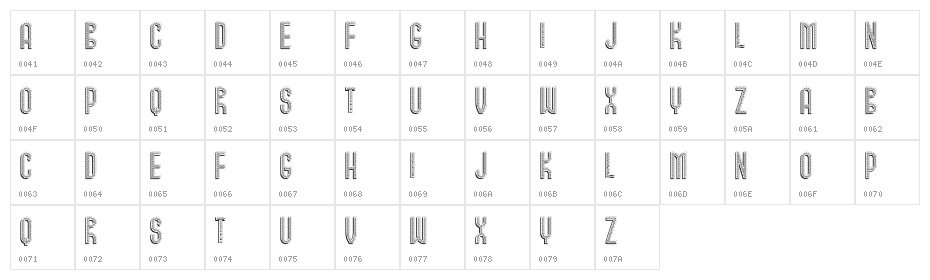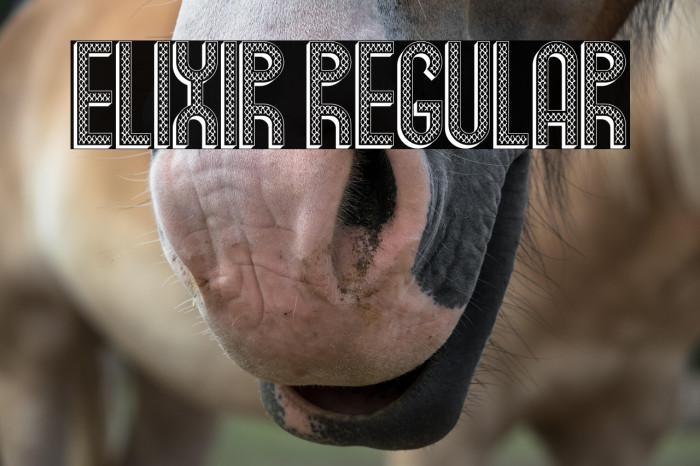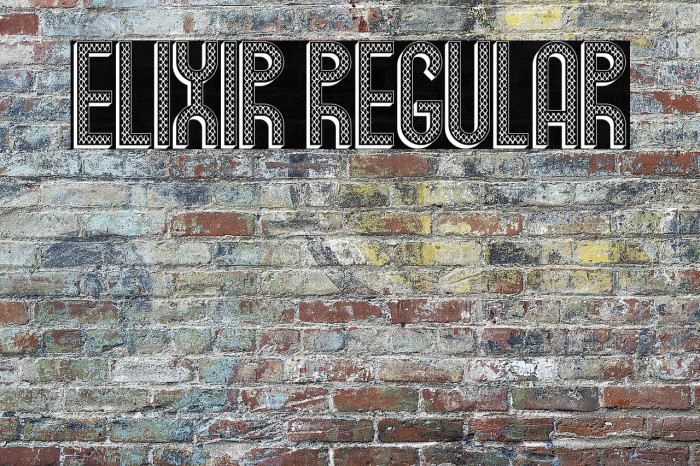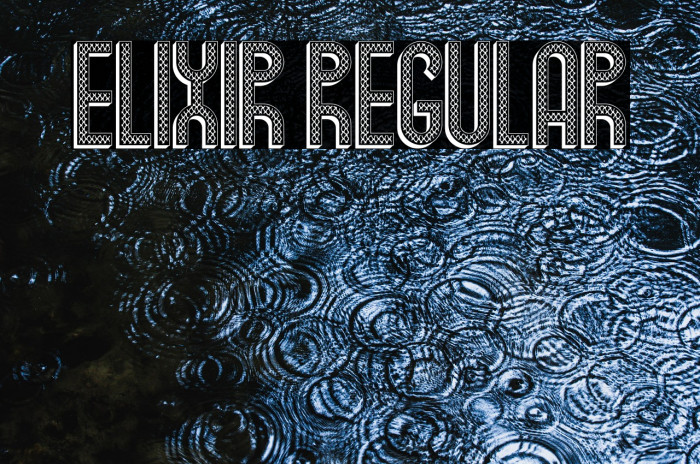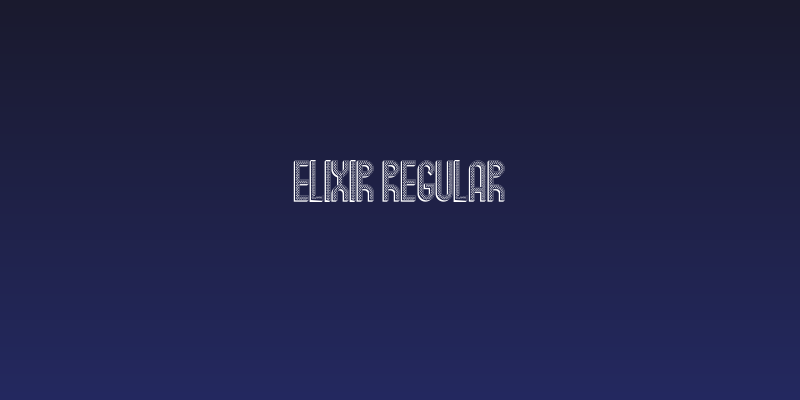
Elixir Regular Font
Elixir Regular Description
This font features a bold, decorative style with intricate patterns filling each character. The letters are uppercase and have a distinct, eye-catching design that combines a vintage feel with modern aesthetics. The geometric patterns within the letters add a layer of complexity and visual interest, making it ideal for standout headlines or artistic projects. The overall look is both playful and sophisticated, suitable for designs that require a unique and memorable typeface.
| Proposed Projects | Ideal for posters, branding, packaging, and any project needing a bold, artistic touch. |